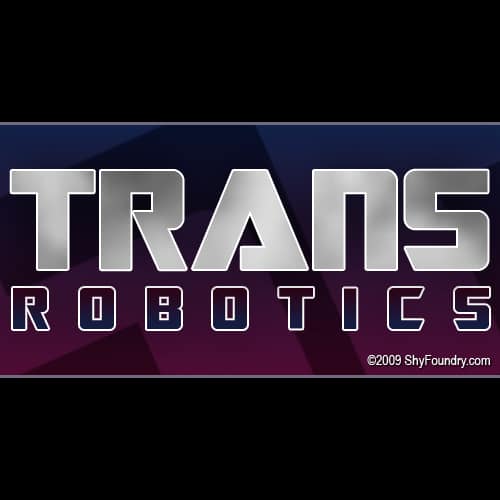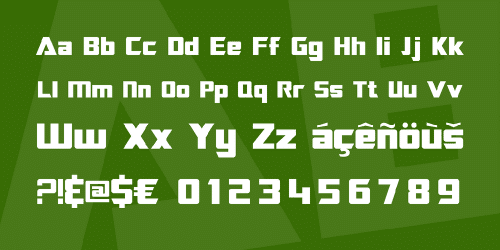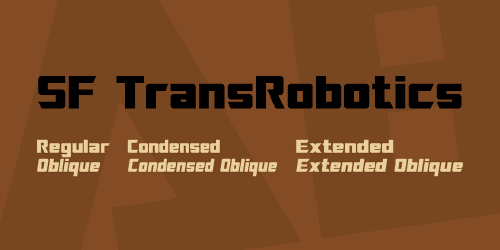
Sf Transrobotics Font is A bold and futuristic typeface that’s been known to transform right before your very eyes. This latest and final release of SF TransRobotics now contains a fully loaded character set that adds support for the following languages: English, French, Italian, German, Spanish, Polish, and Russian.